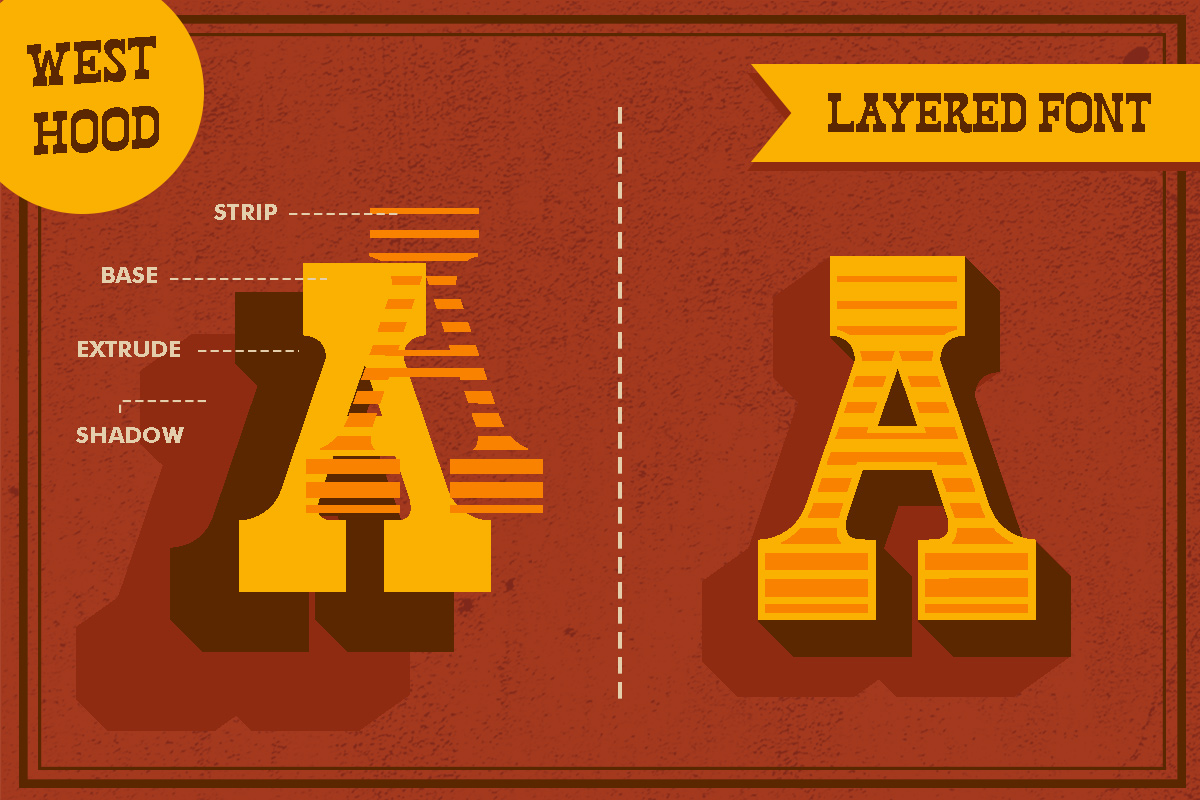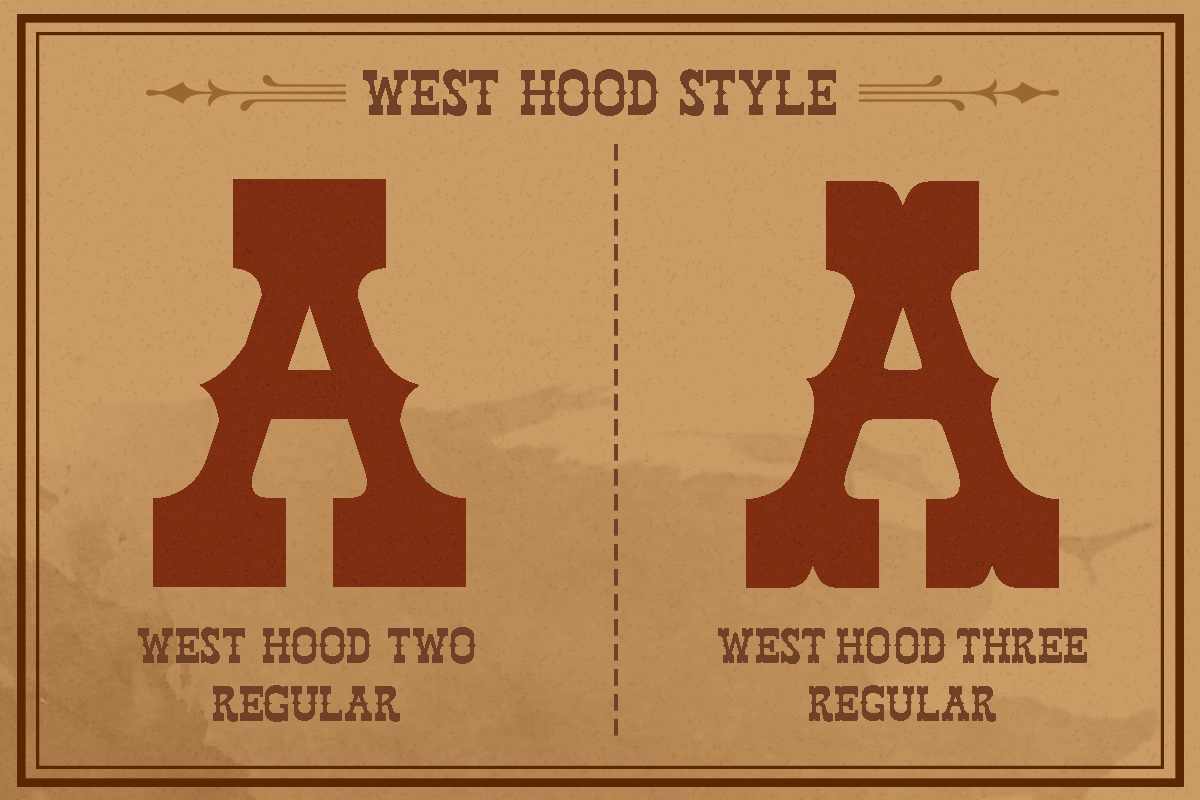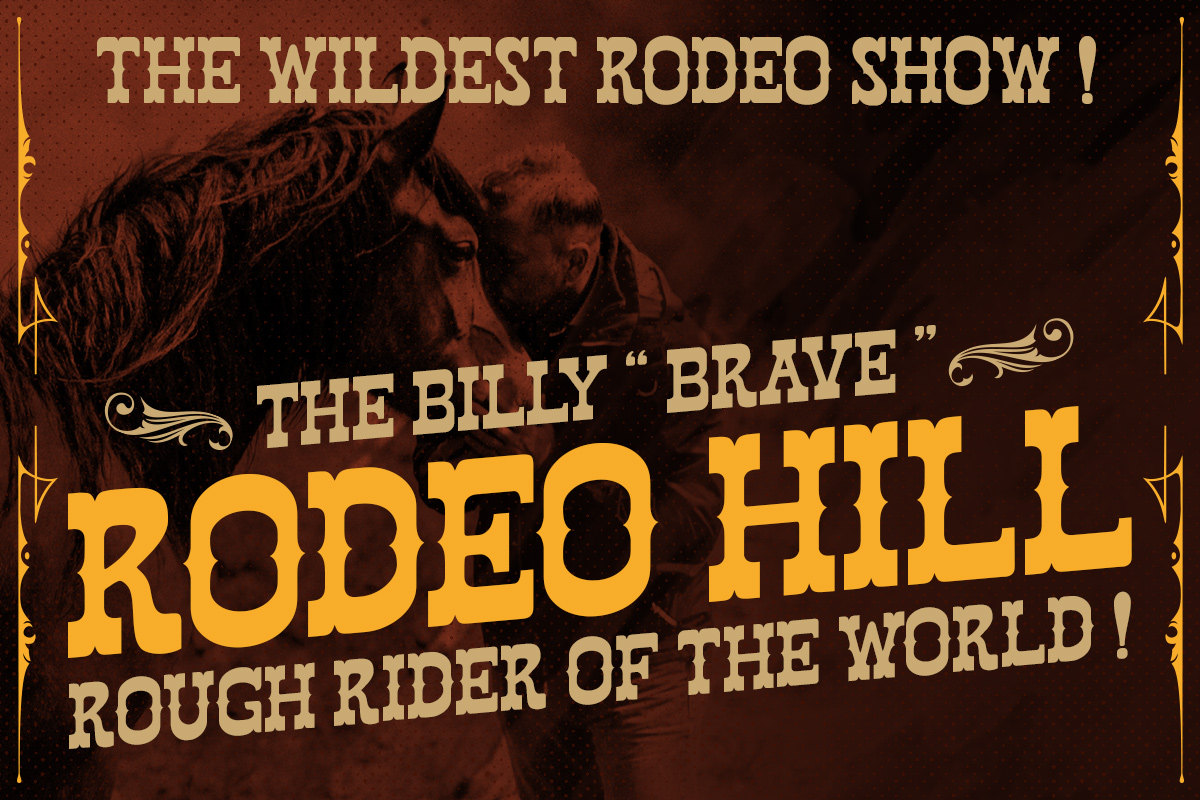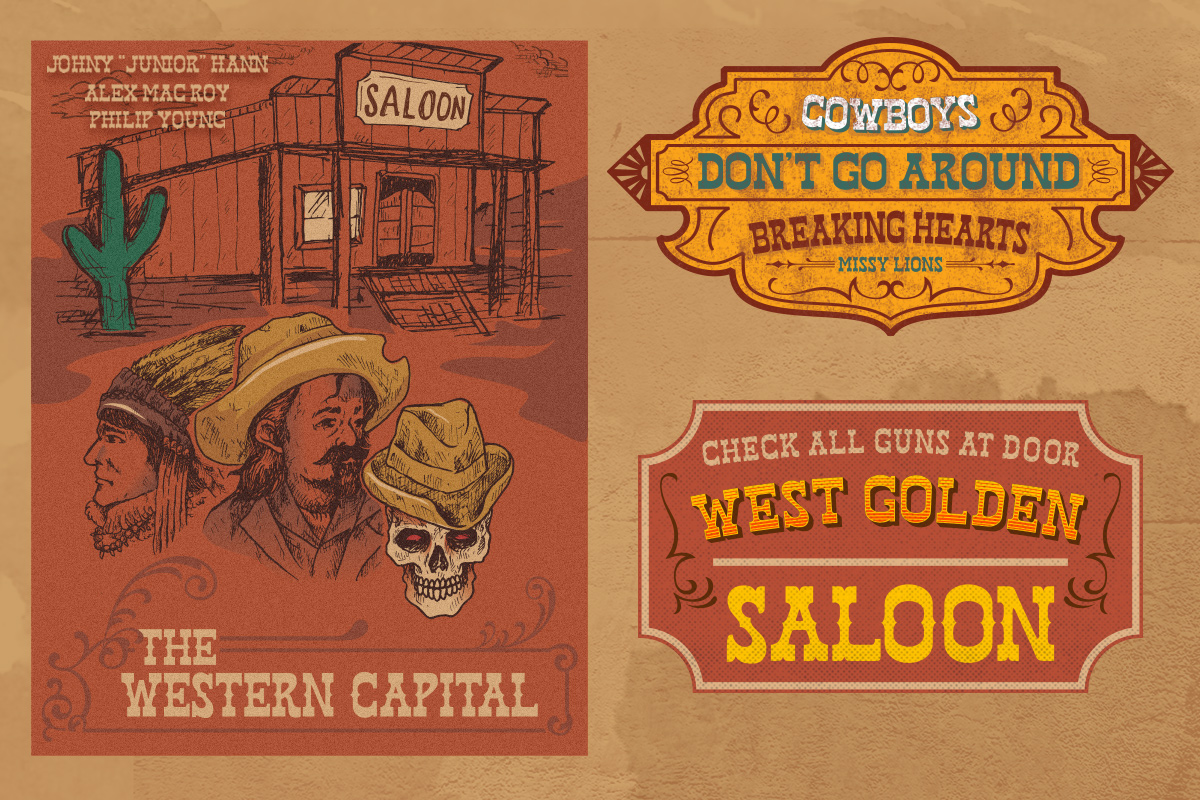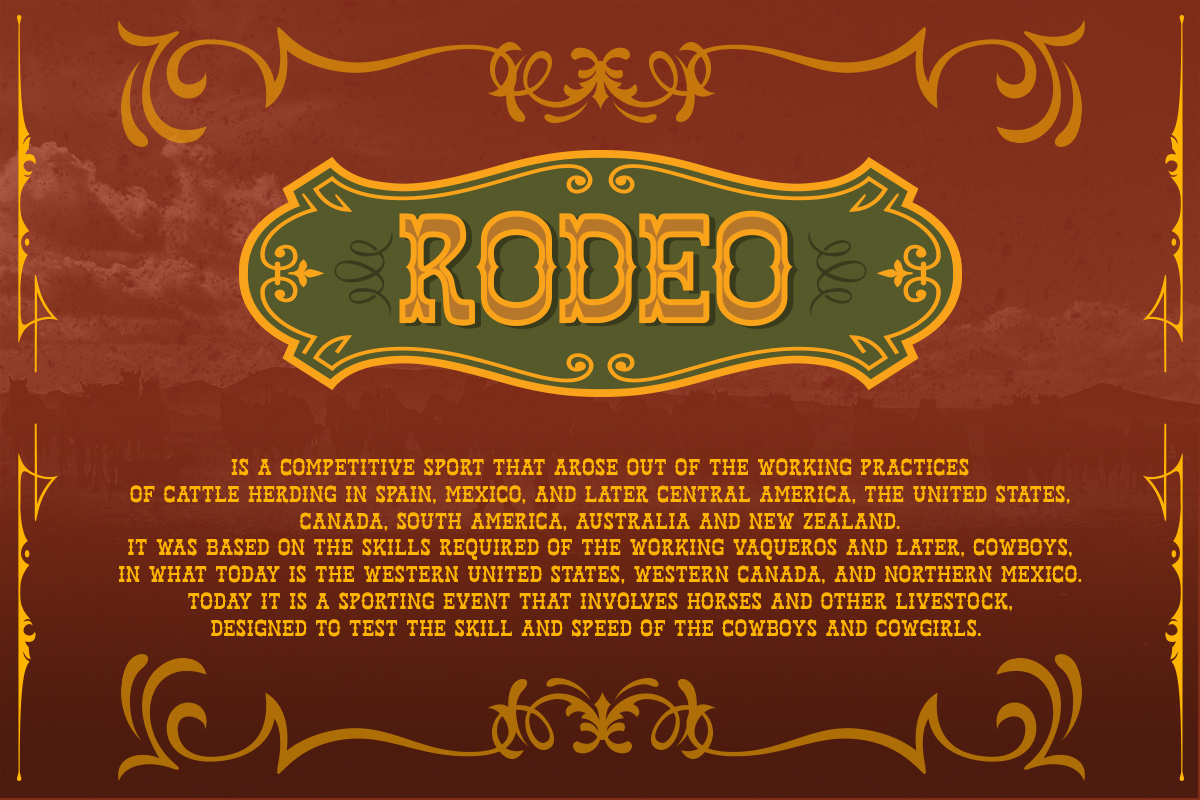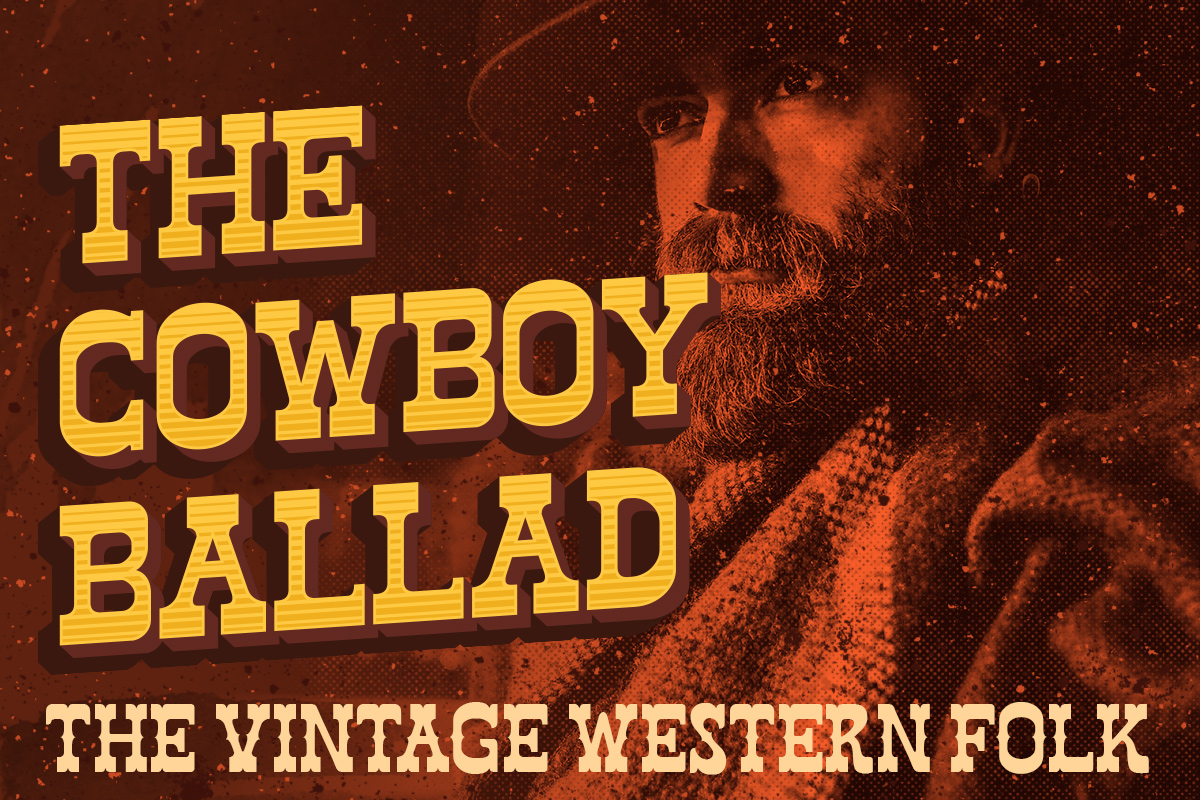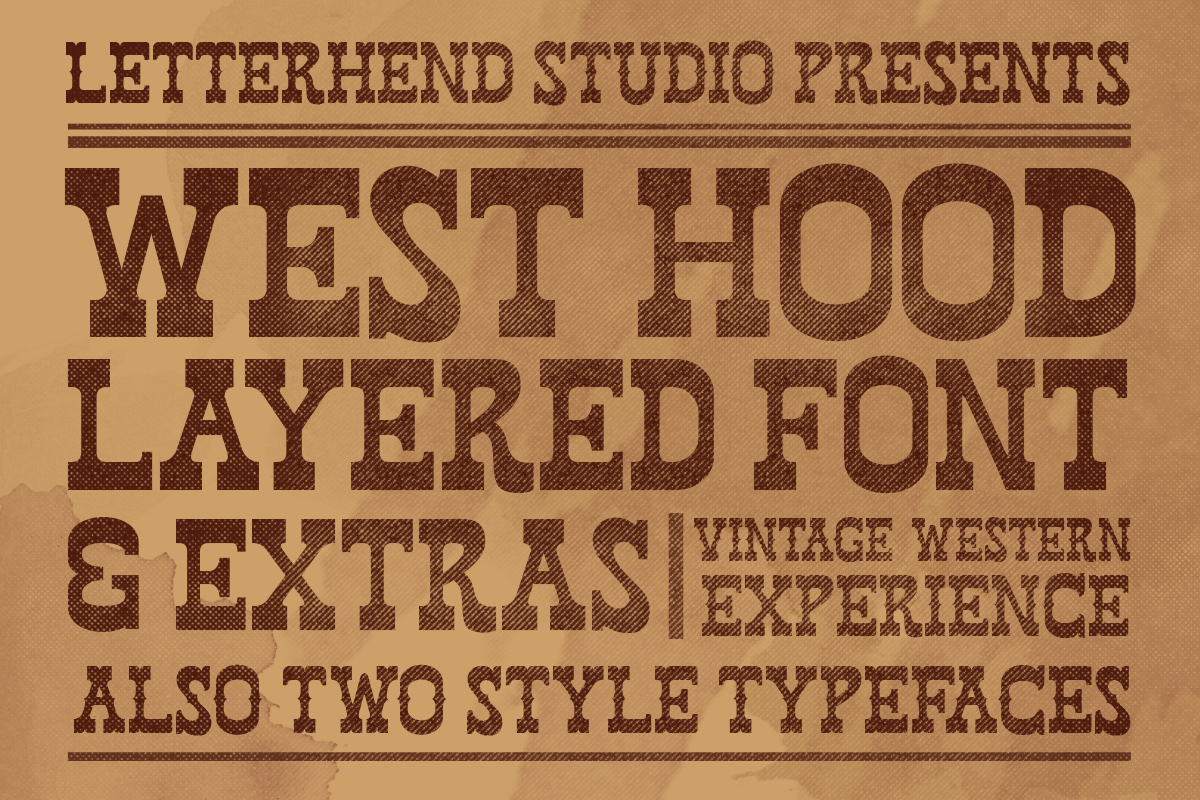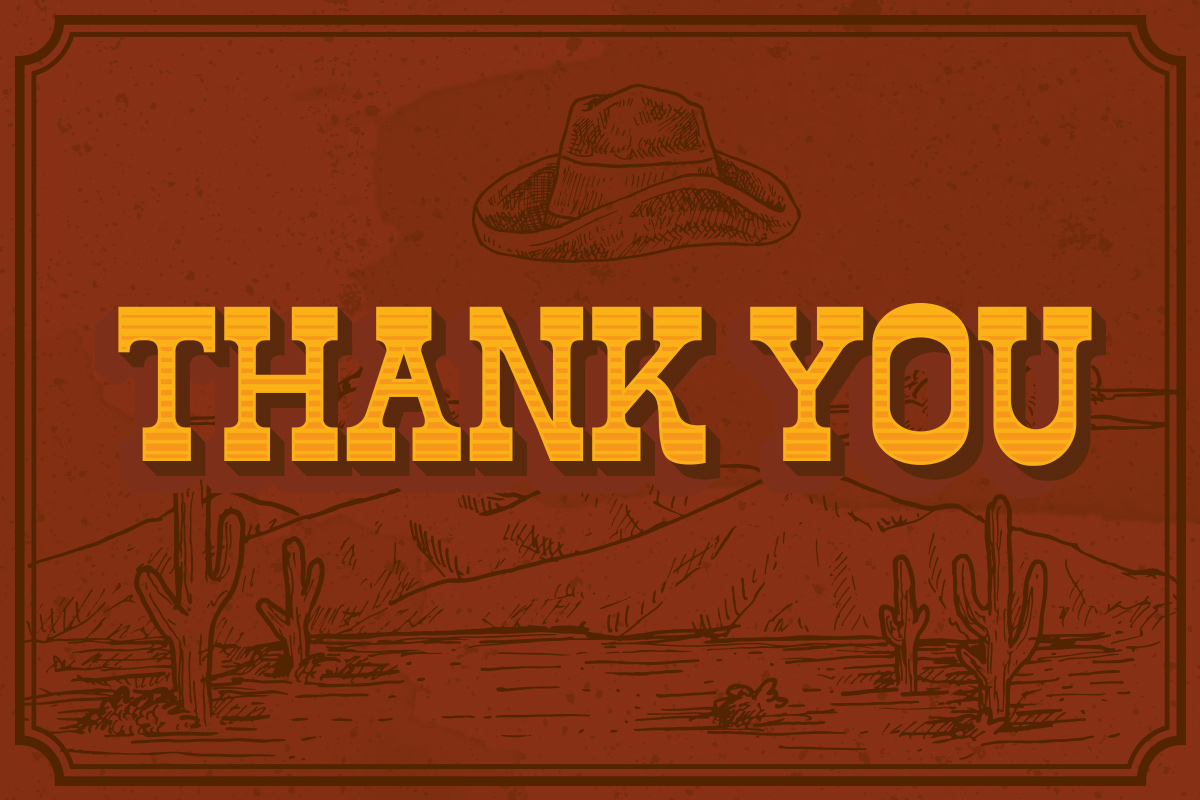
Introducing, West Hood! A Classic Wild West style font, ready to rock! This old fashioned font is really something since it has many styles. This item consist of 12 fonts in various styles which you can play around with it. Suitable for design needs with a touch of classic western. In this product you will get :